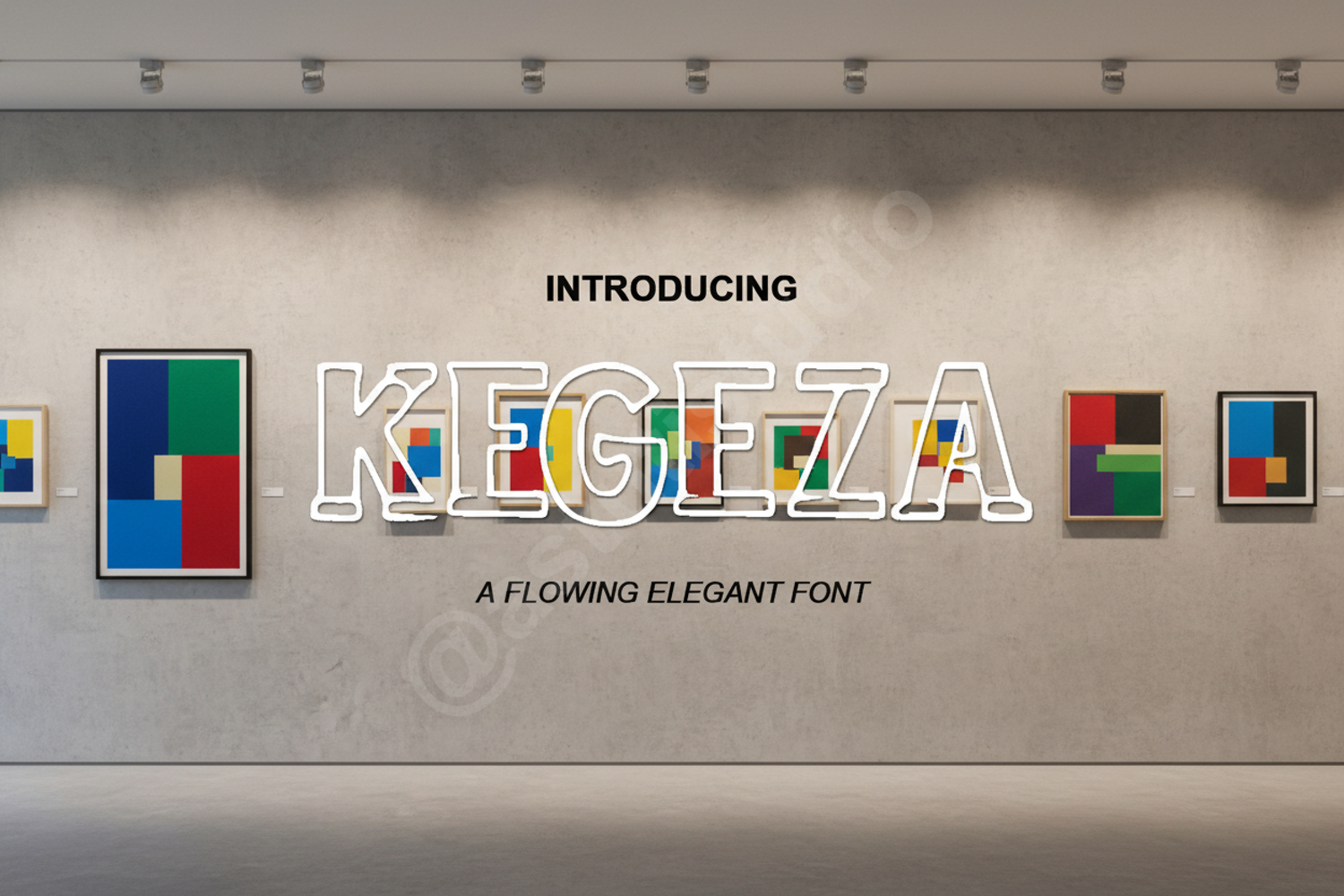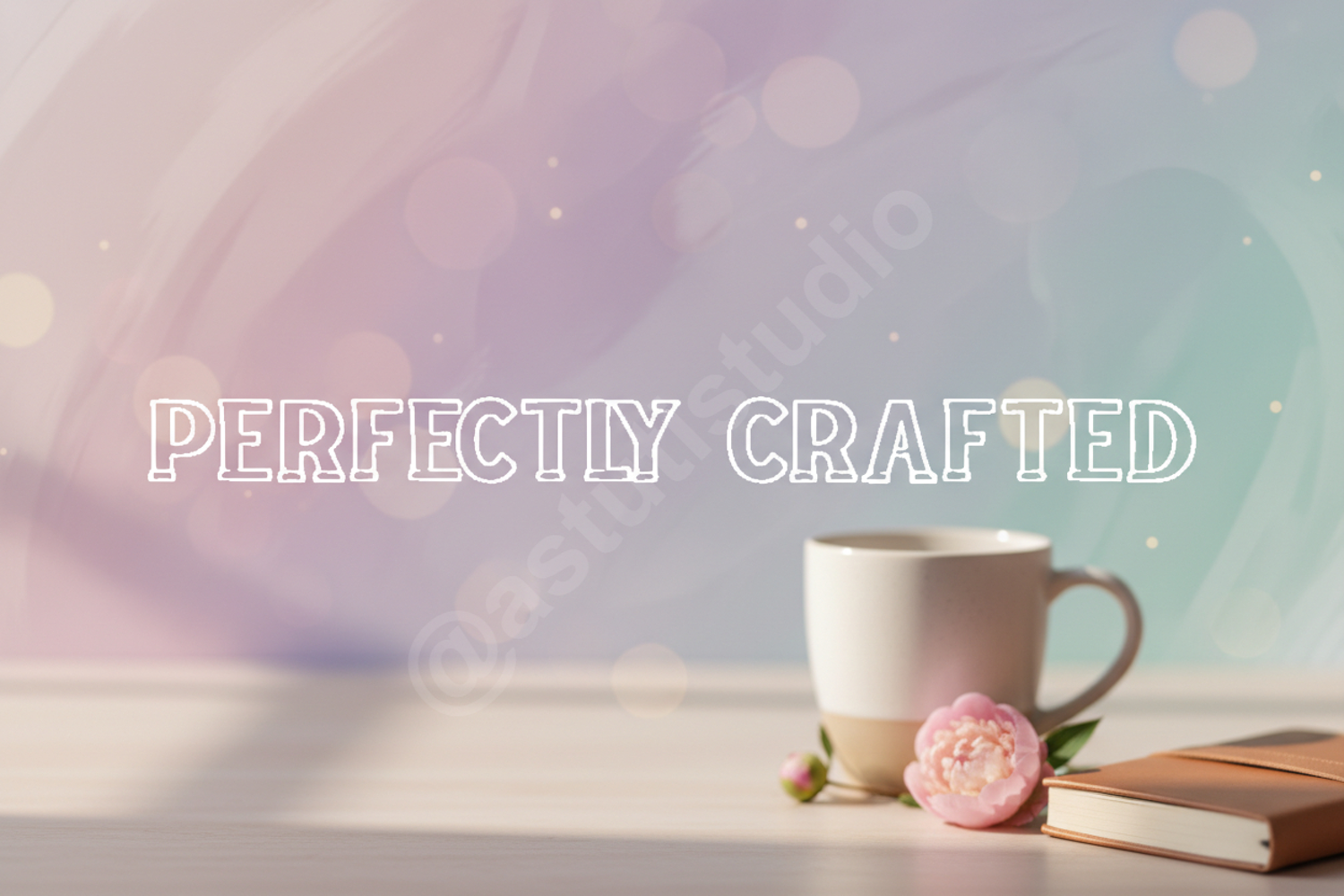
Kegeza - Elegant & Timeless Modern Serif Typeface
Kegeza
Kegeza is a masterfully crafted modern serif font that blends classic elegance with contemporary sophistication. Designed with high-contrast strokes and clean terminals, Kegeza offers a premium aesthetic that commands attention while remaining highly legible. Whether you are aiming for a minimalist look or a bold statement, this versatile typeface adapts seamlessly to your creative vision.
- Full set of uppercase and lowercase letters
- Numbers, punctuation, and multilingual support
- High-End Branding: Perfect for logos and corporate identities that require a touch of luxury.
- Editorial Design: Ideal for magazine headers, book covers, and stylish layouts.
- Wedding Stationery: Create stunning invitations, menus, and place cards with a timeless feel.
- Digital Marketing: Elevate your social media graphics and website headers with a professional finish.
- Luxury Packaging: Enhance product designs for cosmetics, fashion, and premium goods.